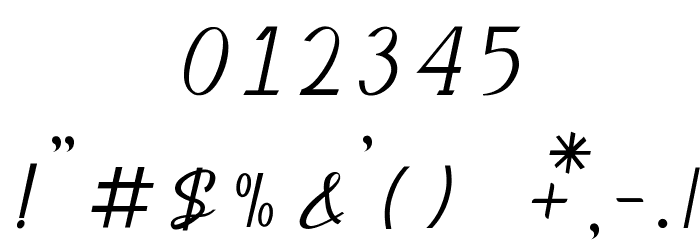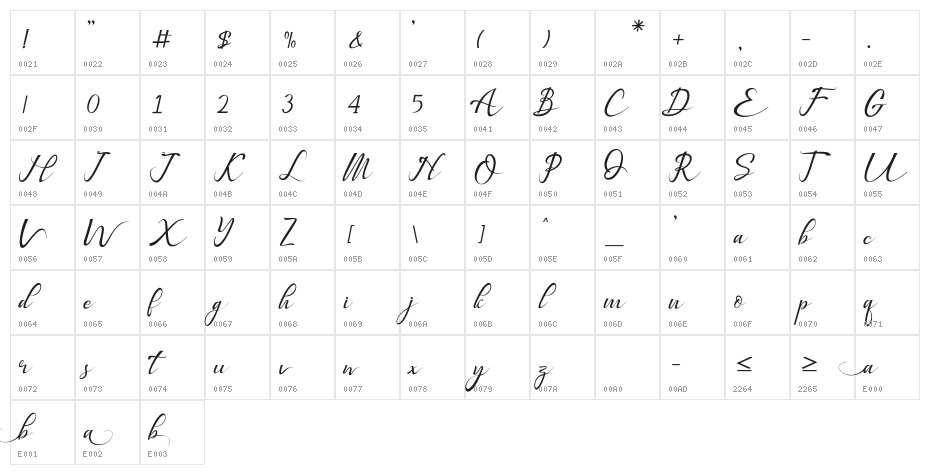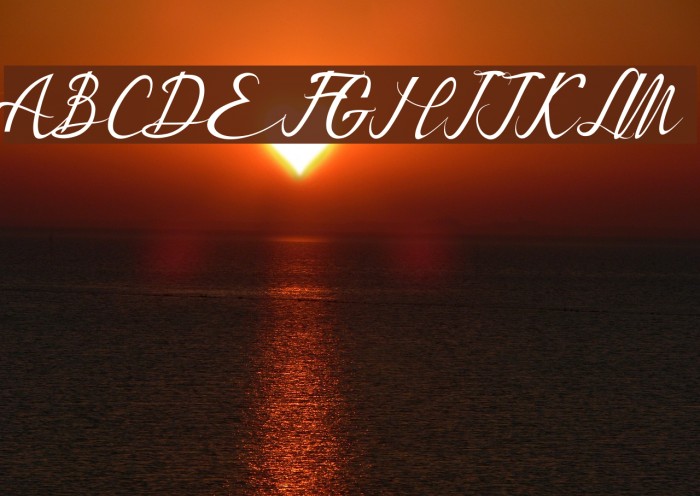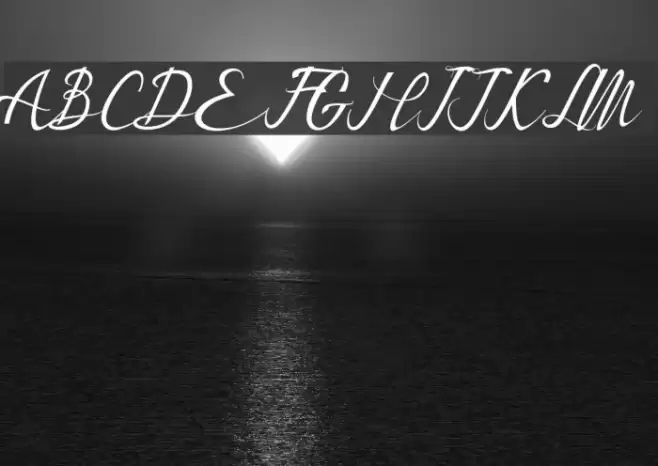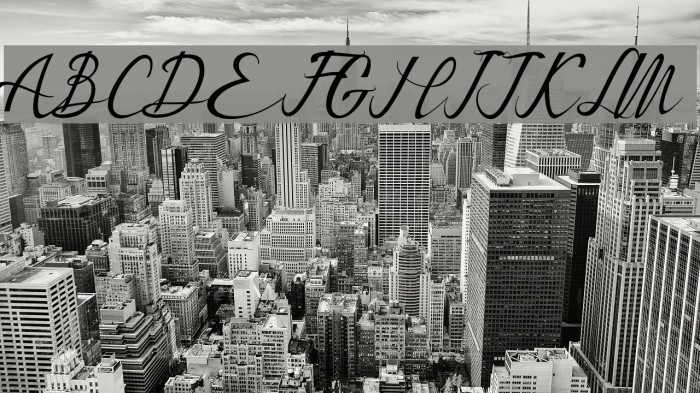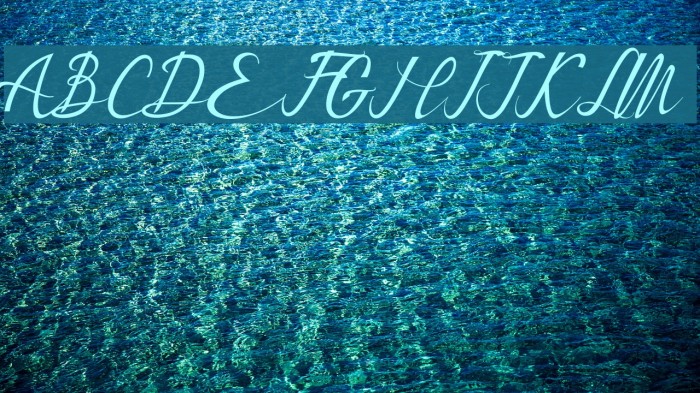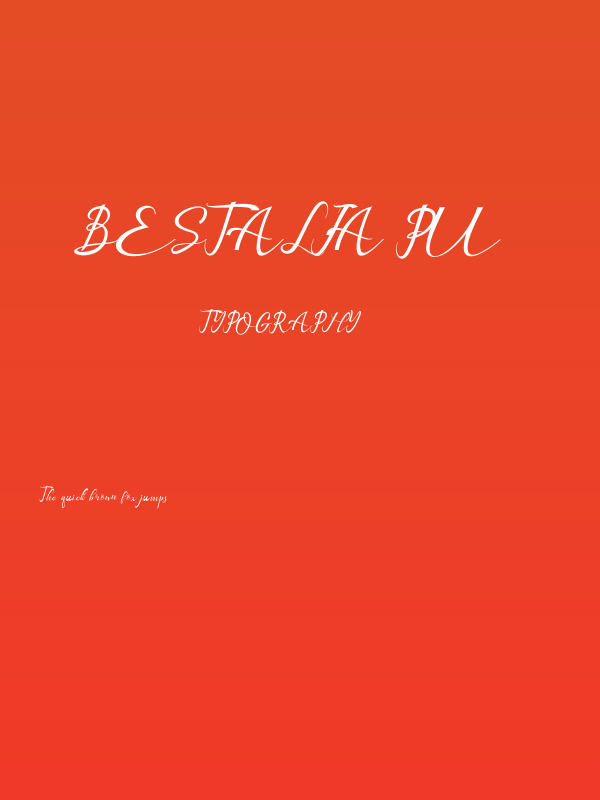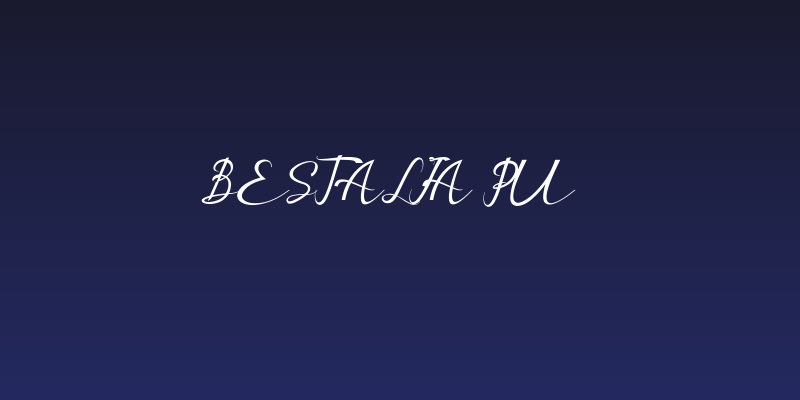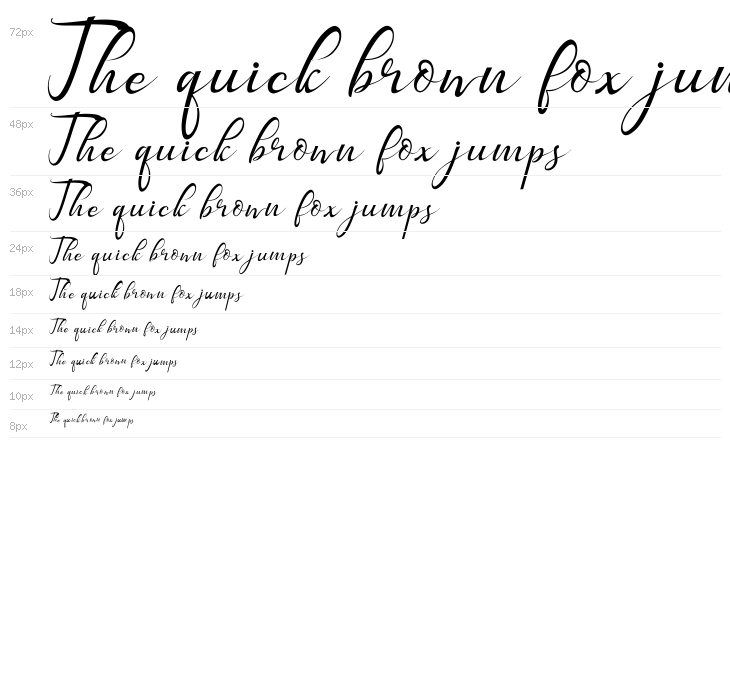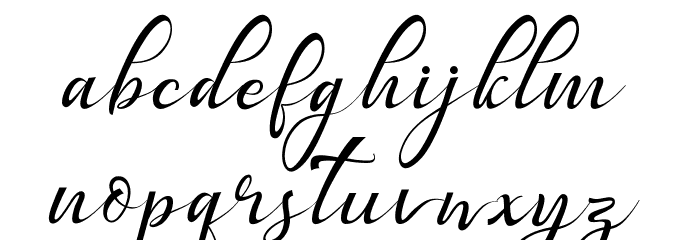
Bestalia PU Font
Bestalia PU Description
This font exhibits a flowing, elegant script style with a modern touch. The uppercase letters are characterized by sweeping curves and flourishes, giving them a sophisticated and graceful appearance. The lowercase letters maintain a consistent flow, with smooth connections between characters, enhancing readability while retaining an artistic flair. The numerals are designed to match the script style, featuring subtle curves and a balanced weight. Special characters are thoughtfully integrated, maintaining the overall aesthetic. This font is ideal for projects that require a touch of elegance and sophistication.